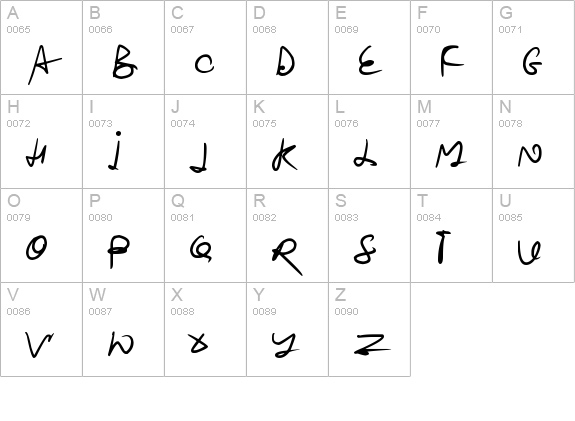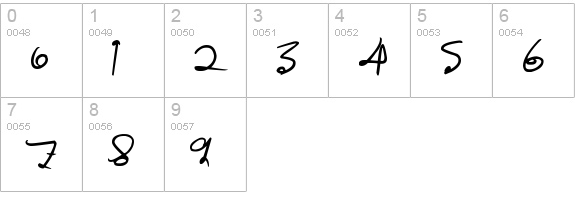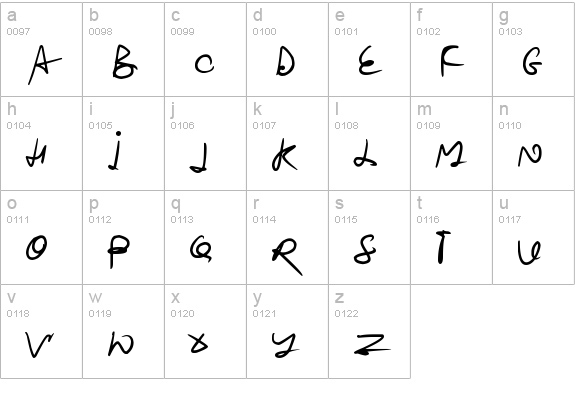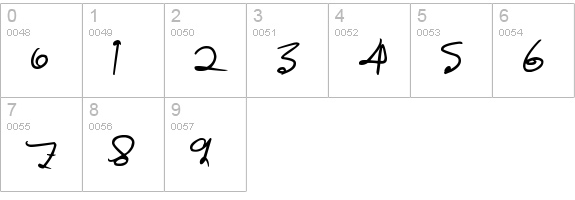
Stroketastic Font Details
Stroketastic is a free for personal use font in the Script > Handwritten category, designed by Darrell Flood. It has been downloaded 35 times and is available for Windows, Mac and Linux.
Stroketastic font is a visually striking typeface that combines elegant strokes with a modern twist. Its unique design features sleek, bold lines that make a powerful statement on any project. The Stroketastic font is perfect for creating eye-catching headlines, logo designs, and branding materials that demand attention. With its clean and versatile aesthetic, this font is a must-have for designers looking to add a touch of sophistication to their work.